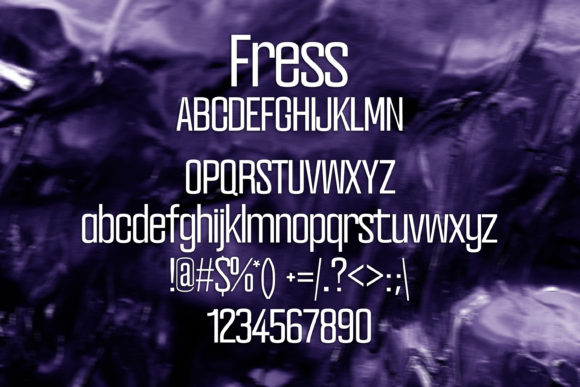
Fress Font: A Modern Sans Serif Marvel
Fress is a unique and modern sans serif font that will add a contemporary feel to any design project! With its clean lines, elegant curves, and highly legible letterforms, Fress is the perfect choice for designers, crafters, and creative hobbyists looking to elevate their work.
- ✨ Modern and fresh: Fress has a distinctly contemporary feel that will instantly update your designs.
- ✅ Elegant and refined: The font’s clean lines and curves make it perfect for projects that require a touch of sophistication.
- 💡 Highly legible: Fress is designed to be easy to read, even at small sizes.
Of course, no font is perfect, and Fress has a few minor quirks:
- 🤔 Limited language support: Fress currently supports a limited number of languages, so be sure to check compatibility before using it for multilingual projects.
- ⚠️ No italic version: While Fress has a range of stylistic alternates, there is no italic version available.
The Story Behind Fress Font
Fress Font was designed with the goal of creating a modern, elegant, and highly legible sans serif font. Inspired by the latest design trends and a passion for typography, Fress is the result of careful craftsmanship and attention to detail.
| What is Fress Font? | Fress Font is a modern sans serif font designed for use in a variety of design projects. |
| Does Fress Font support OpenType features? | Yes, Fress Font supports OpenType features, including stylistic alternates and glyphs. |